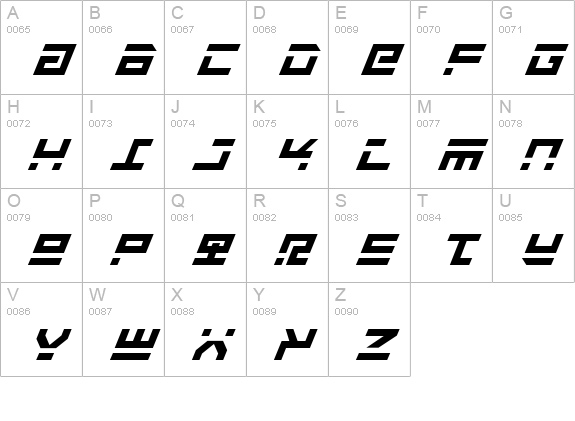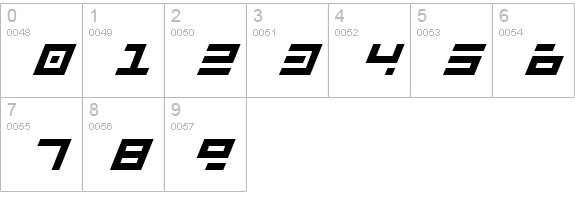
Rocket Type Bold Italic is a strong, high-contrast, italic variant in the Rocket typeface family \xE2\x80\x94 well suited to headlines, attention-grabbing titles, and strong calls-to-action.
Rocket Type Bold Italic is a dynamic and eye-catching font that exudes energy and modernity. With its bold and italic design, this font is perfect for making a bold statement in any design project. Whether you are creating posters, logos, headlines, or social media graphics, Rocket Type Bold Italic will grab attention and leave a lasting impression. What makes Rocket Type Bold Italic even more appealing is that it is available for free download at FontsMarket.com. This means that you can easily access this stylish font and incorporate it into your designs without any cost. Don't miss out on the opportunity to elevate your projects with the striking and versatile Rocket Type Bold Italic font. Download it today and let your creativity soar!